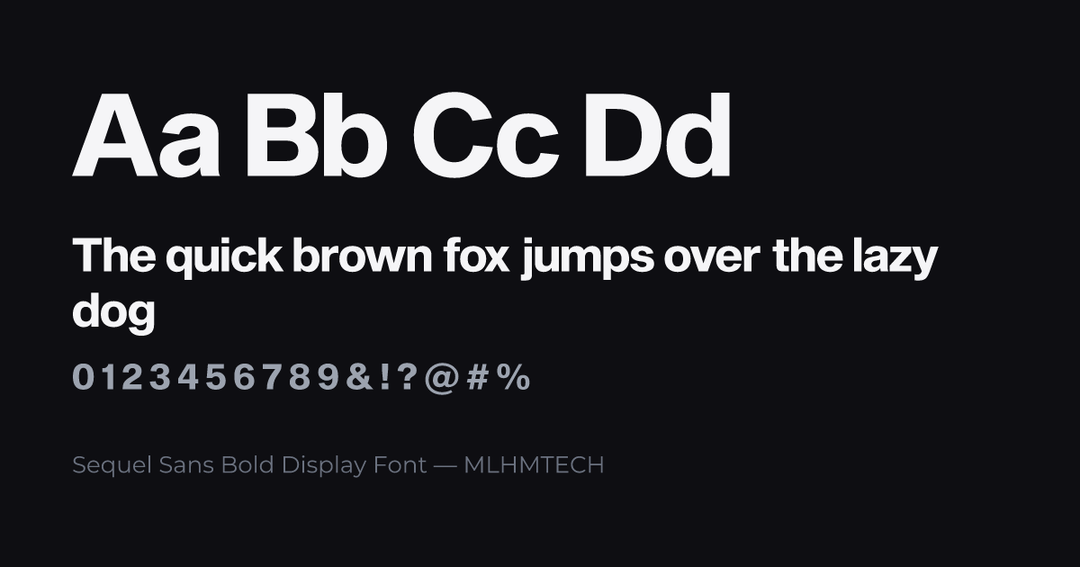
Sequel Sans Bold Display Font
Sequel Sans Bold Disp is a versatile, modern sans-serif font with a clean, geometric look. Perfect for headlines, logos, and impactful designs.
Sequel Sans Bold Disp is a high-quality display font that brings a contemporary and clean aesthetic to your projects. Its bold weight and geometric letterforms make it ideal for grabbing attention in headlines, posters, and branding materials.